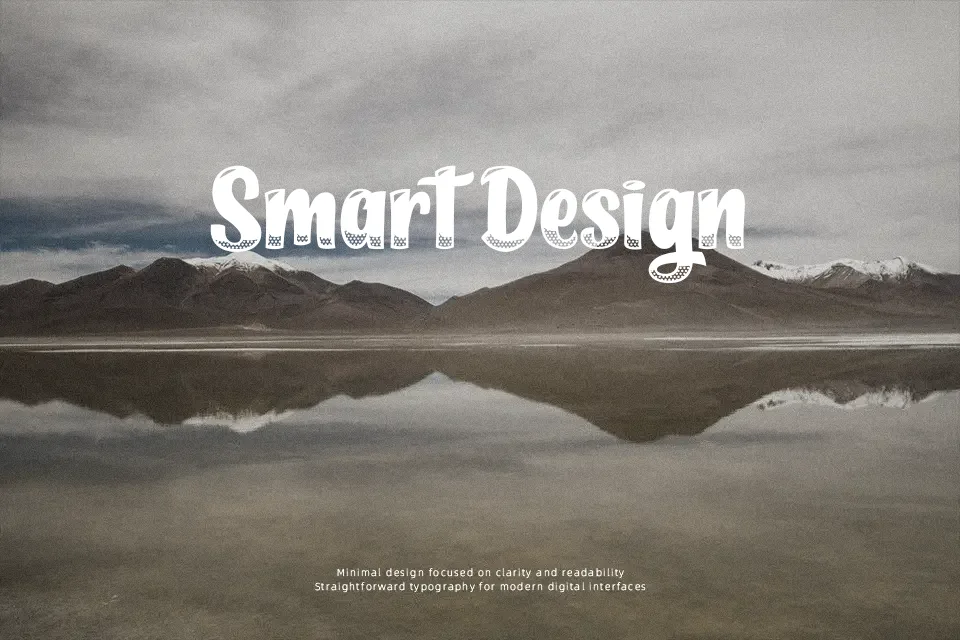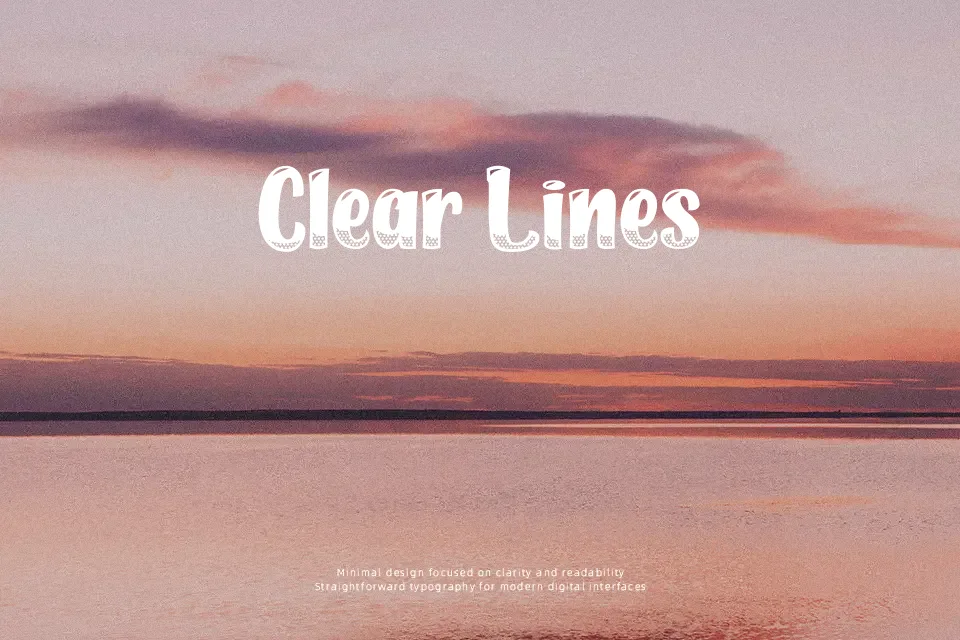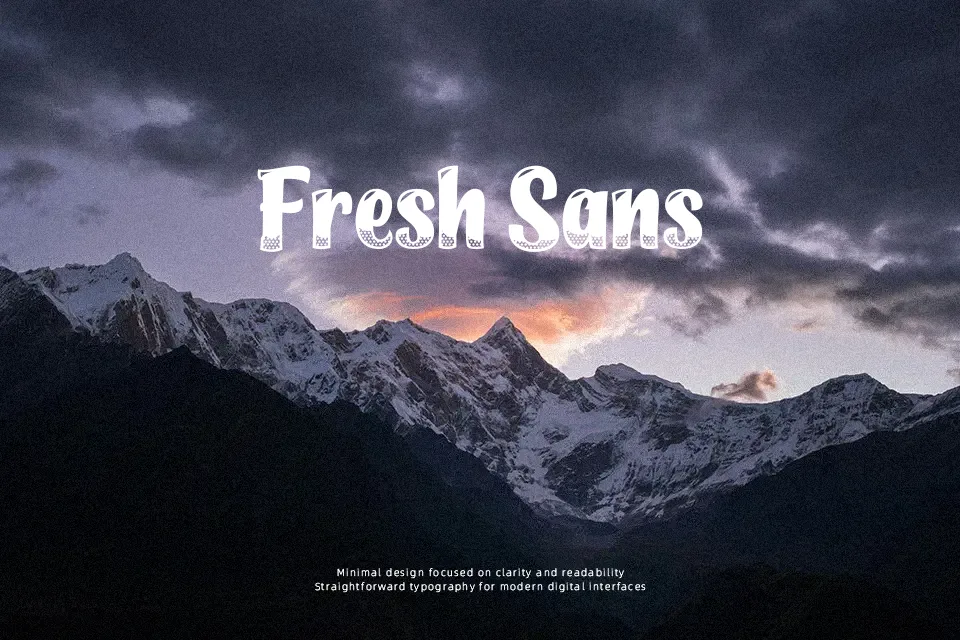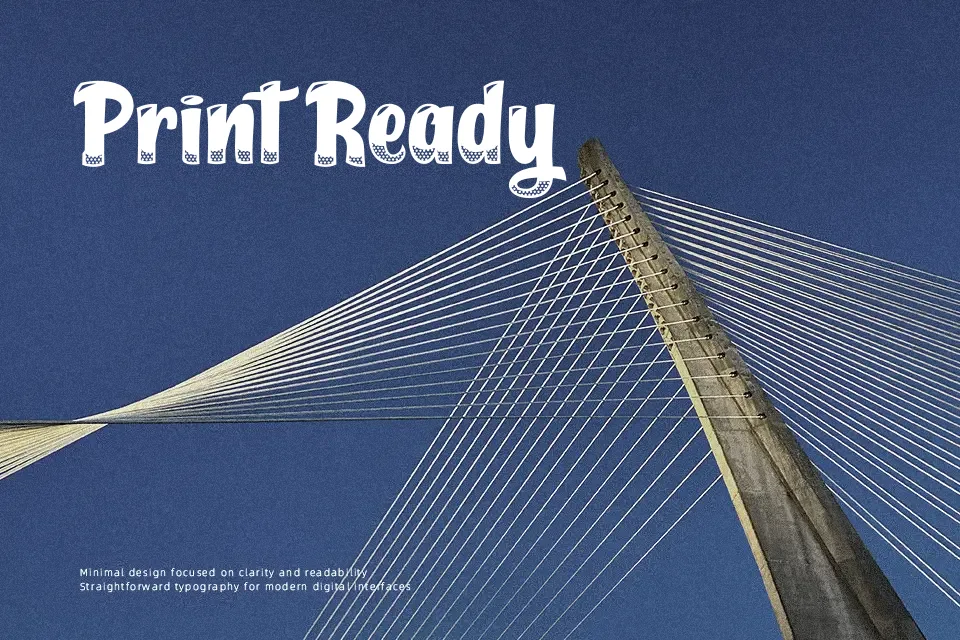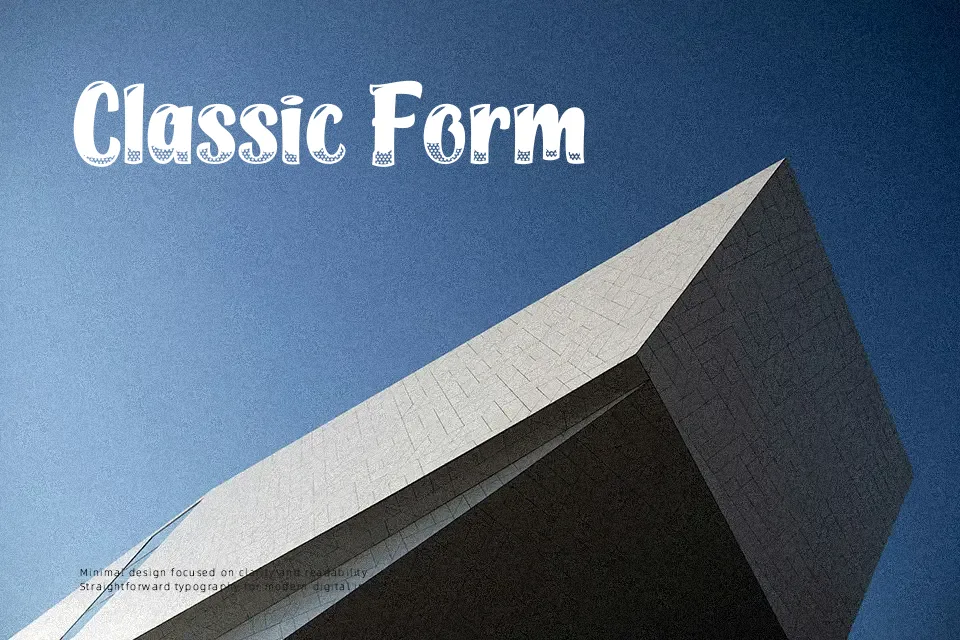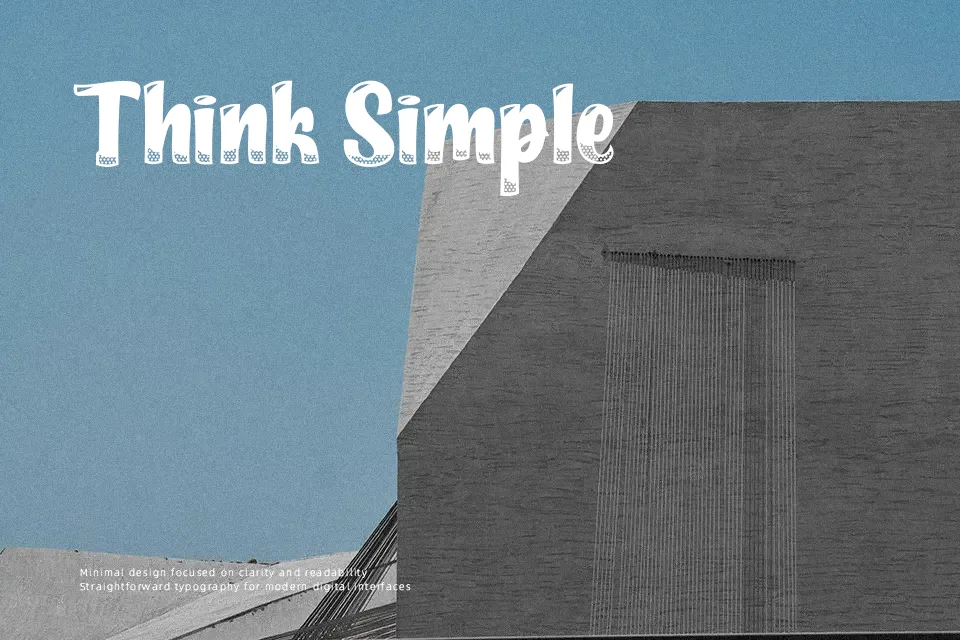
Anime Kids Font
Starting with big, rounded letterforms and slightly irregular edges, Anime Kids Font reads as a loud, hand-drawn cartoon display face with strong visual weight and loose spacing. Its strokes feel textured rather than clean, which adds energy but reduces clarity at very small sizes. This casual, playful look fits children’s book covers, toy packaging, anime fan art titles, and thumbnails for kid-friendly gaming or animation content. It works well when you need one or two standout words, but it quickly becomes tiring in long paragraphs or formal layouts. Because of the heavy shapes and decorative details, it is less suitable for professional branding or dense UI text.
kids YouTube thumbnail titles
children’s book or comic covers
toy or snack packaging for kids
anime or gaming event posters
long paragraph text or body copy
formal corporate branding or reports
minimalist UI or app interfaces
serious editorial layouts